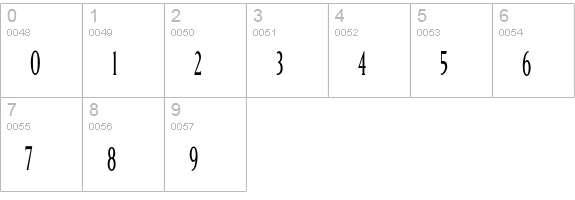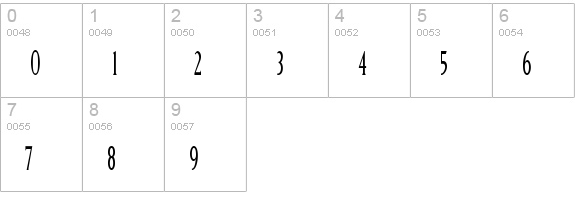
MatrixNarrowLining Font Details
MatrixNarrowLining font is a sleek and modern typeface that combines sharp edges with a narrow design, making it perfect for creating a sophisticated and contemporary look. The clean lines and geometric shapes of this font give it a futuristic and tech-inspired feel, making it ideal for a wide range of design projects. This font is available for free download at FontsMarket.com, allowing you to easily access and use it in your designs without any cost. Whether you're working on a website, branding materials, or any other project that requires a stylish and edgy font, MatrixNarrowLining font is sure to make a statement. Elevate your designs with this versatile and eye-catching font today.